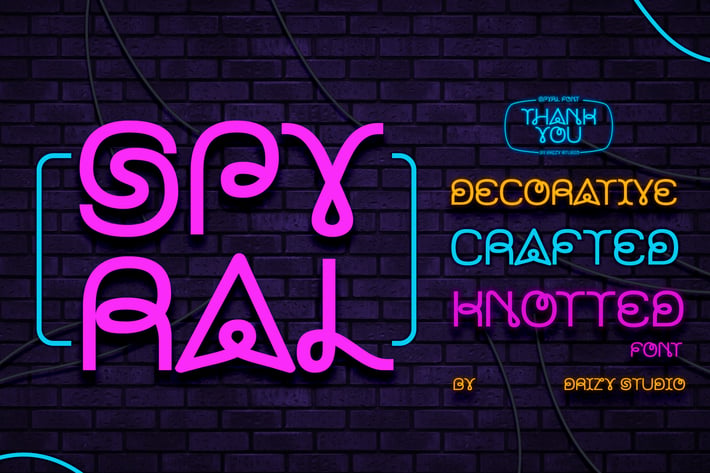
Spyral - Decorative Knotted Font
Spyral - Sans Serif Decorative Font
Spyral - Sans Serif Decorative Font from Drizy Studio. Offering all the styles you need for your projects.